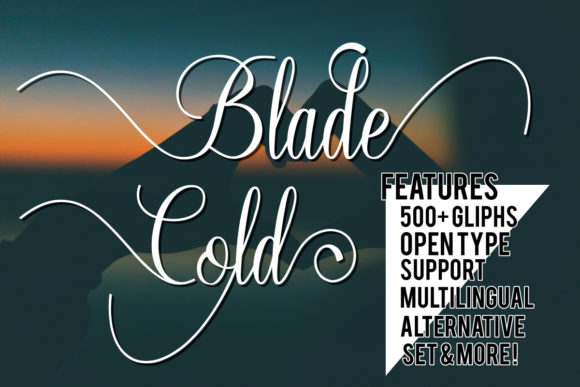
I’ll never forget the time I was working on a branding project for a high-end fashion client. I had spent hours perfecting the logo design, but something was off. The font I had chosen just wasn’t elevating the design to the level I knew it could be. I scoured the internet for the perfect script font, but nothing seemed quite right. That was until I stumbled upon **Blade Cold Font**. This stunning and sophisticated script font has been a game-changer for my design projects ever since.
An Honest Review of Blade Cold Font
So, what makes Blade Cold Font so special? Let’s dive into the good stuff and a few quirks I’ve discovered.
- ✨ Unique ligatures that add a touch of elegance to any design
- ✅ Multi-language support, making it perfect for global brands
- 💫 Sophisticated and modern feel that’s perfect for high-end designs
- 🎨 Highly versatile and can be used for a variety of design projects, from logos to invitations
While Blade Cold Font is an amazing font, there are a few things to keep in mind:
- 🤔 Some users may find the font a bit tricky to read at smaller sizes, so it’s best to use it for headlines or titles
- ⚠️ The font’s unique ligatures may not display properly in all software or platforms, so it’s essential to test it before finalizing your design
The Designer Inspiration Behind Blade Cold Font
While the true story behind Blade Cold Font’s creation is unknown, it’s easy to imagine that the designer was inspired by the world of high-end fashion and luxury. The font’s sleek lines, elegant ligatures, and sophisticated feel evoke the world of haute couture. Whether or not that’s true, one thing is certain: Blade Cold Font is a stunning addition to any design project.
| Font Name | Blade Cold Font |
| Author | Great’s St |
Q: What is Blade Cold Font?
A: Blade Cold Font is a stunning and sophisticated script font with unique ligatures and multi-language support.
Q: What kind of designs is Blade Cold Font best suited for?
A: Blade Cold Font is perfect for high-end designs, luxury brands, and projects that require a touch of sophistication.
Q: Is Blade Cold Font easy to read?
A: While Blade Cold Font is a beautiful font, it can be a bit tricky to read at smaller sizes. It’s best to use it for headlines or titles.